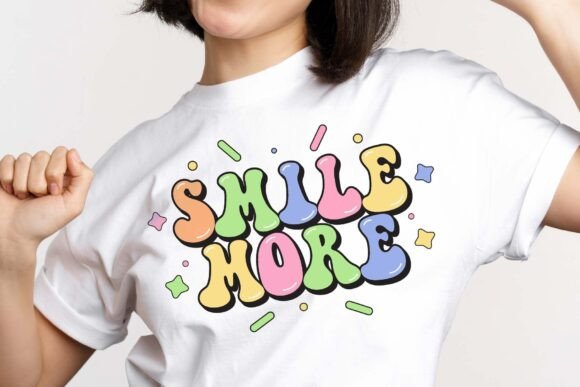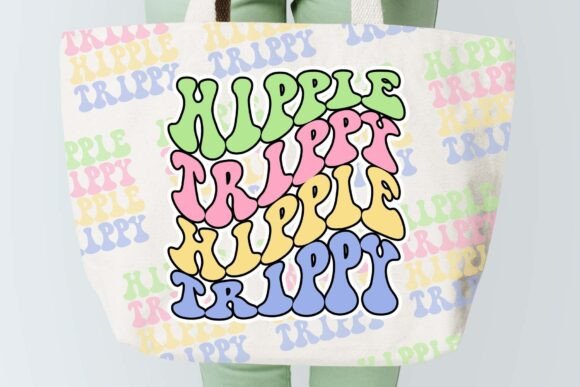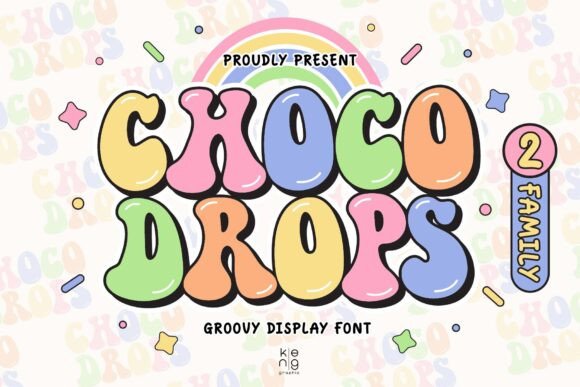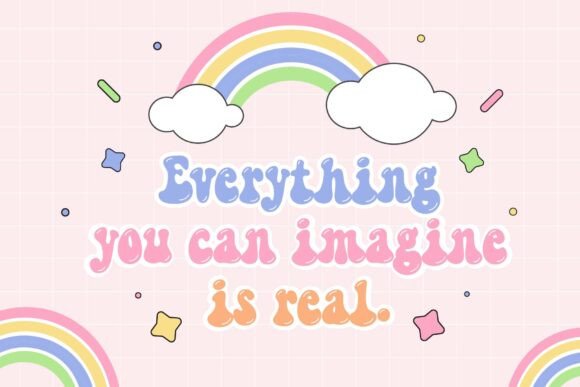
Choco Drops Font
About the Choco Drops Font
Meet Choco Drops Font, a stunning font that brings a touch of elegance and professionalism to any design. Unleash your playful creativity with the CHOCO DROPS font. Radiating a groovy, adorable vibe, this font is perfect for stamping your unique touch on a host of designs – be it a vibrant t-shirt, darling mug, chic bag, and beyond. Ideal for every designer eyeing to sprinkle a pinch of fun and charm in their creations, CHOCO DROPS is an irresistible font that brings your vision to life!
Choco Drops Font Usage Examples